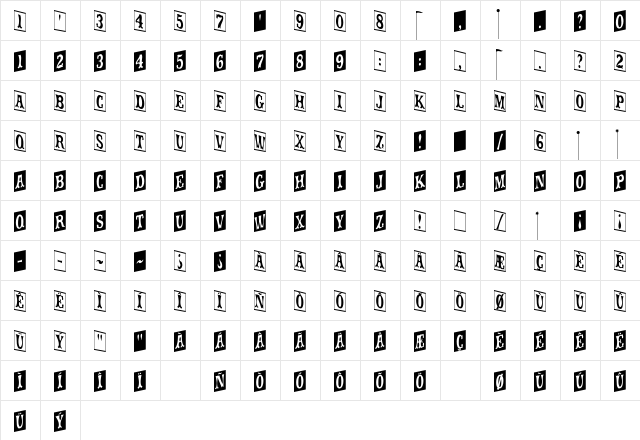
movieola Regular
Design Context for movieola Typeface
movieola is a composed and adaptable typeface that performs quietly and consistently across a wide range of design contexts.